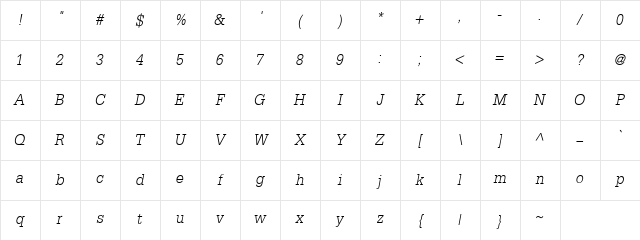
DilleniaUPC Italic
Design Context for DilleniaUPC
DilleniaUPC is a composed and adaptable typeface that performs quietly and consistently across a wide range of design contexts. The slanted form adds forward momentum and visual energy.